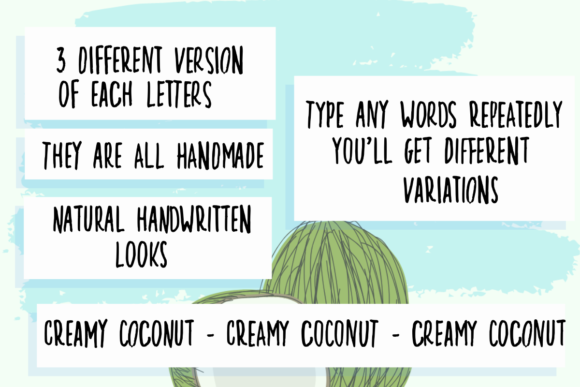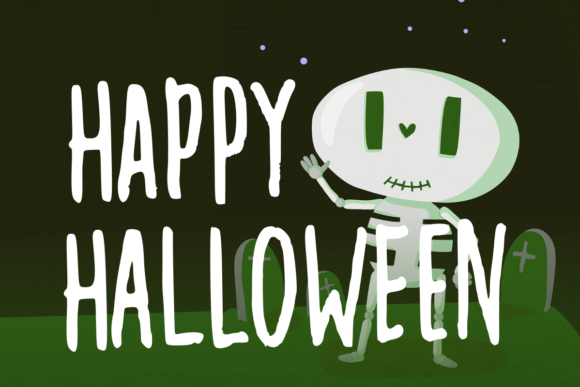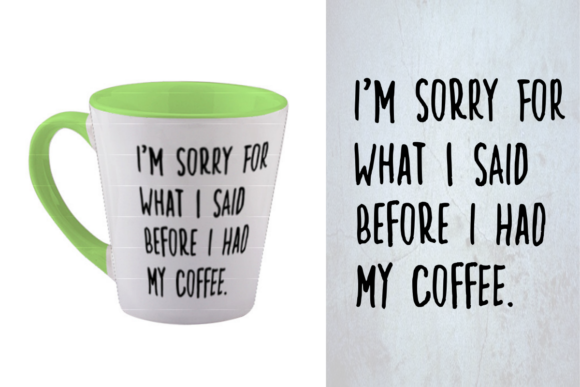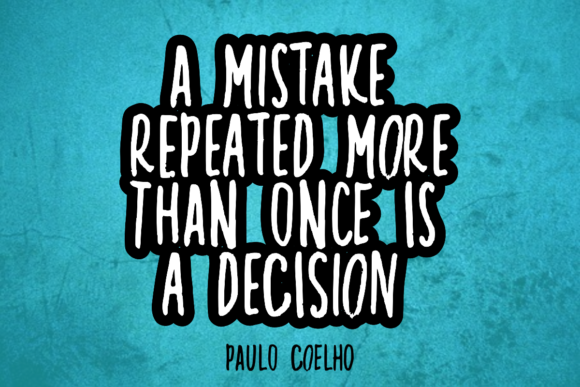
Creamy Coconut Font
About Creamy Coconut Font
Creamy Coconut is a simple and natural handwritten font. Brushed and unique, this font makes the perfect choice for each of your informal crafting ideas.